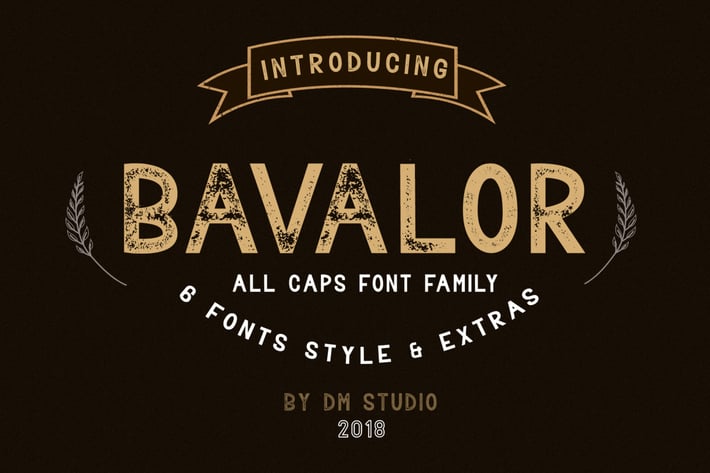
BAVALOR - ALL CAPS FONT FAMILY WITH EXTRAS
Introducing, BAVALOR the all in caps sans serif-font family. It includes regular, outline, and grunge version with normal & italic style. Bavalor has 6 OTF & TTF font files. Choose freely for your desired designs, pair between each other version or let it stand alone. This collection will be great for logo, branding, stamp, posters, t-shirts, cards, signage, etc. Plus it has an EXTRA collection of useful shapes & banners to make your design more powerful!
Bavalor's features :
- ALL IN CAPS Characters set
- Numerals
- Punctuation and symbols
- Multilingual supports
- Collection of useful shapes & banners